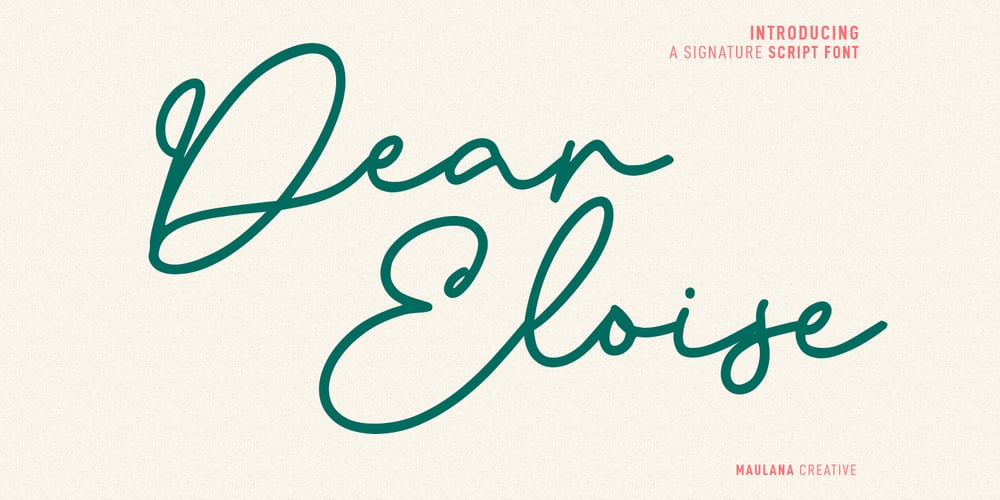
MC Dear Eloise Font Family was designed by Gilang Maulana and published by Maulana Creative. MC Dear Eloise contains 1 styles and family package options. Dear Eloise is an unique fancy signature script font. With regular mon-line stroke, fun character with a bit of ligatures and alternates. To give you an extra creative work. Dear Eloise font support multilingual more than 100+ language. This font is good for logo design, Social media, Movie Titles, Books Titles, a short text even a long text letter and good for your secondary text font with sans or serif. Make a stunning work with Dear Eloise font. Cheers, Maulana Creative